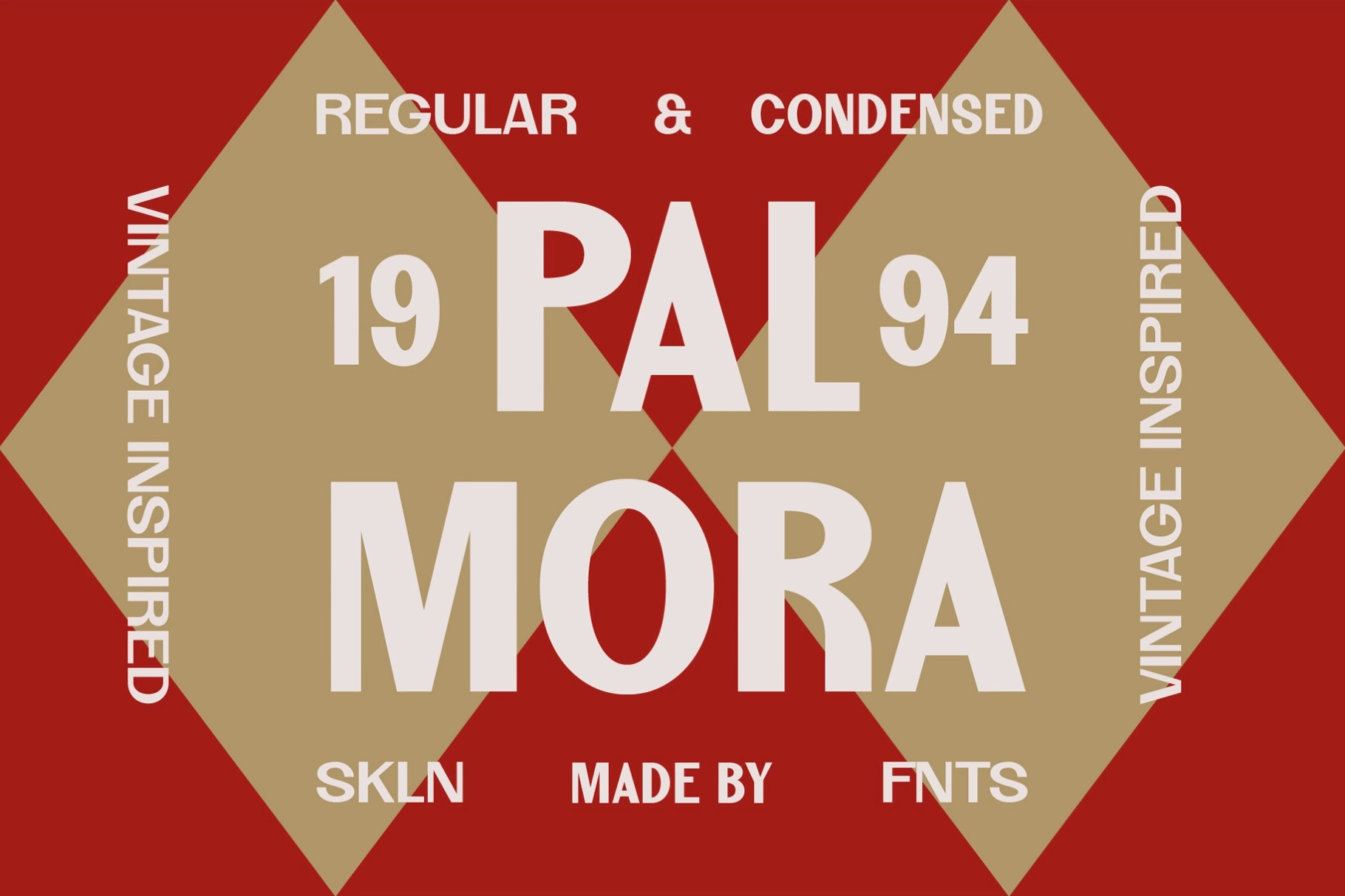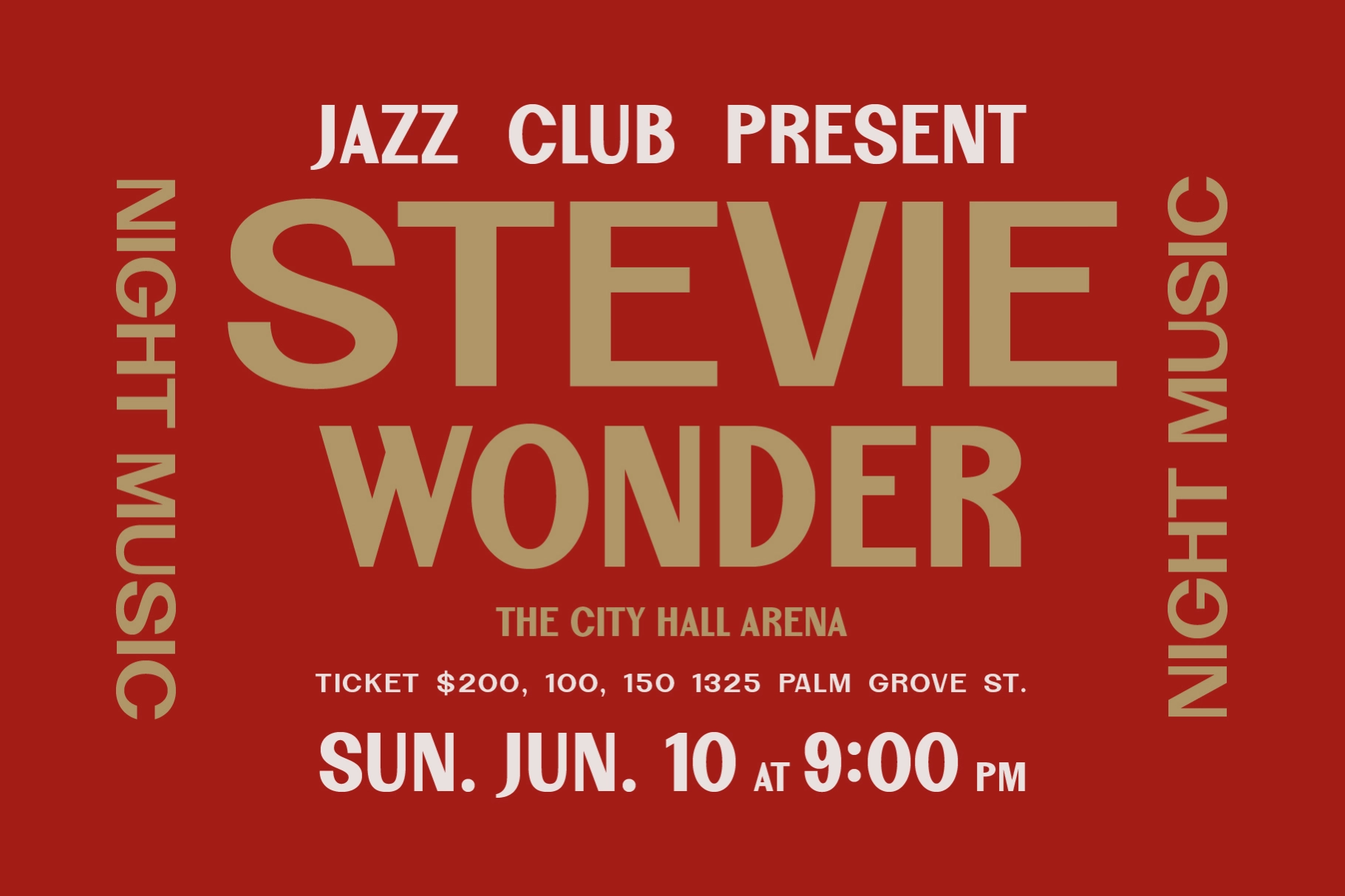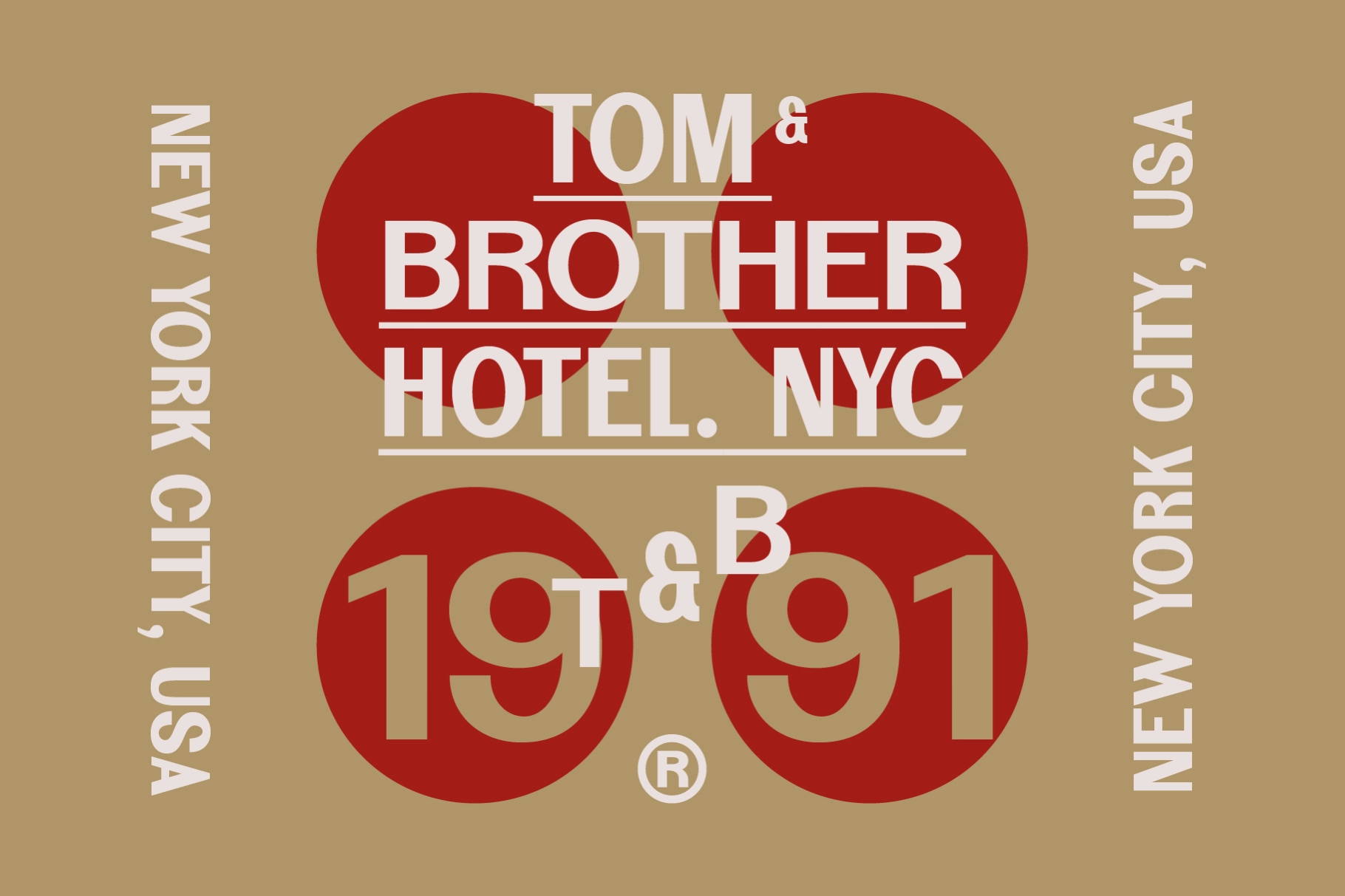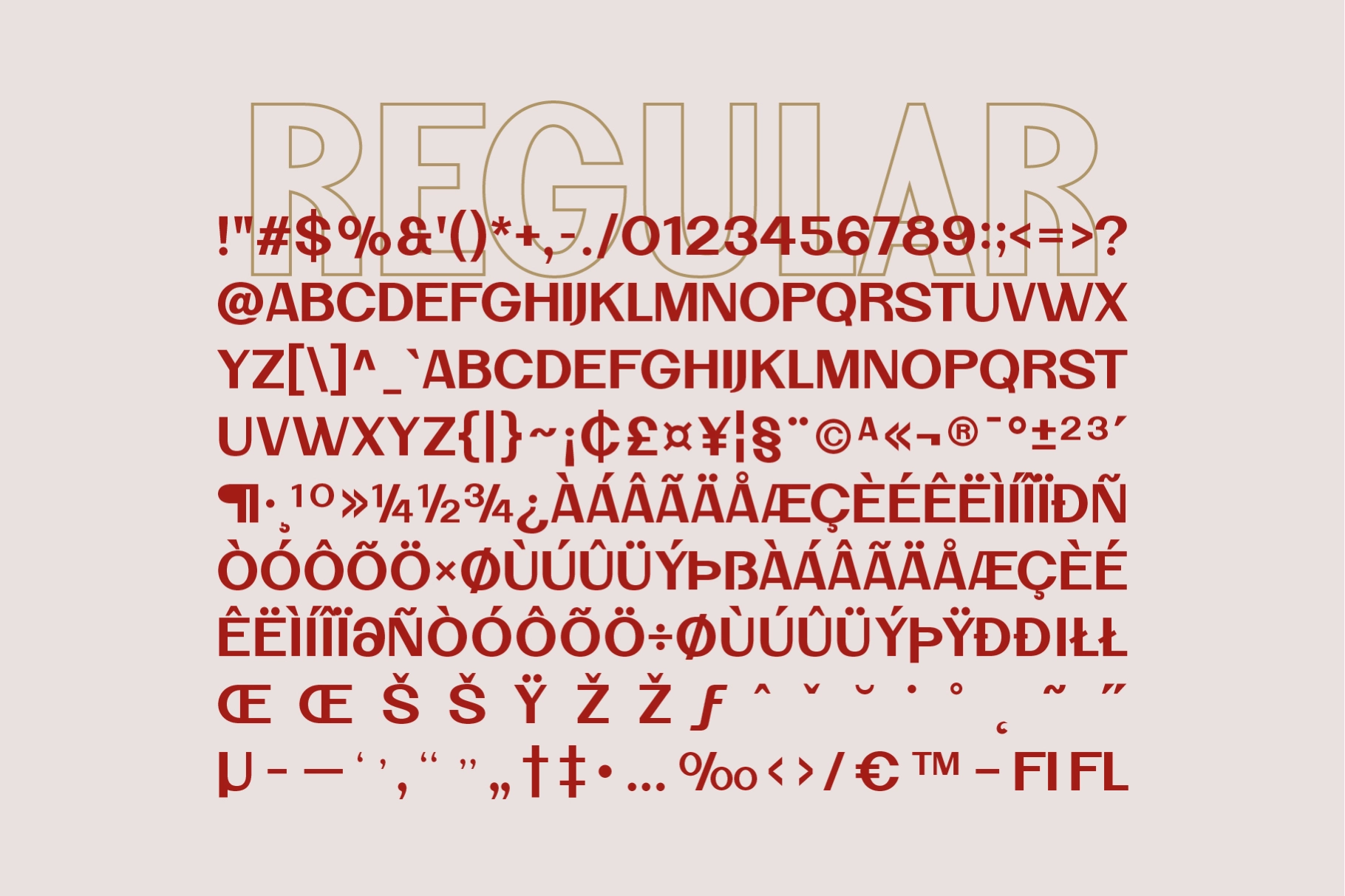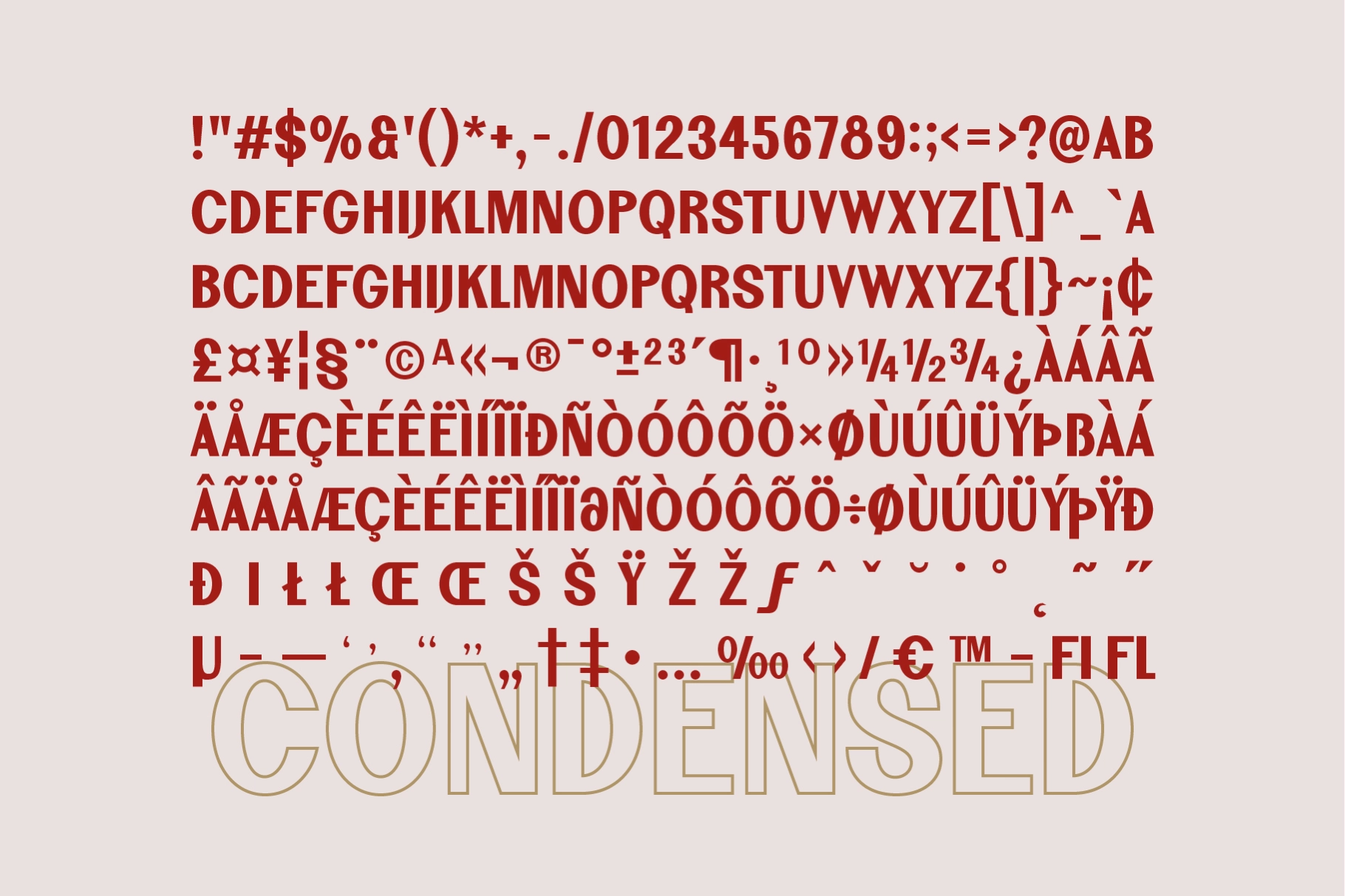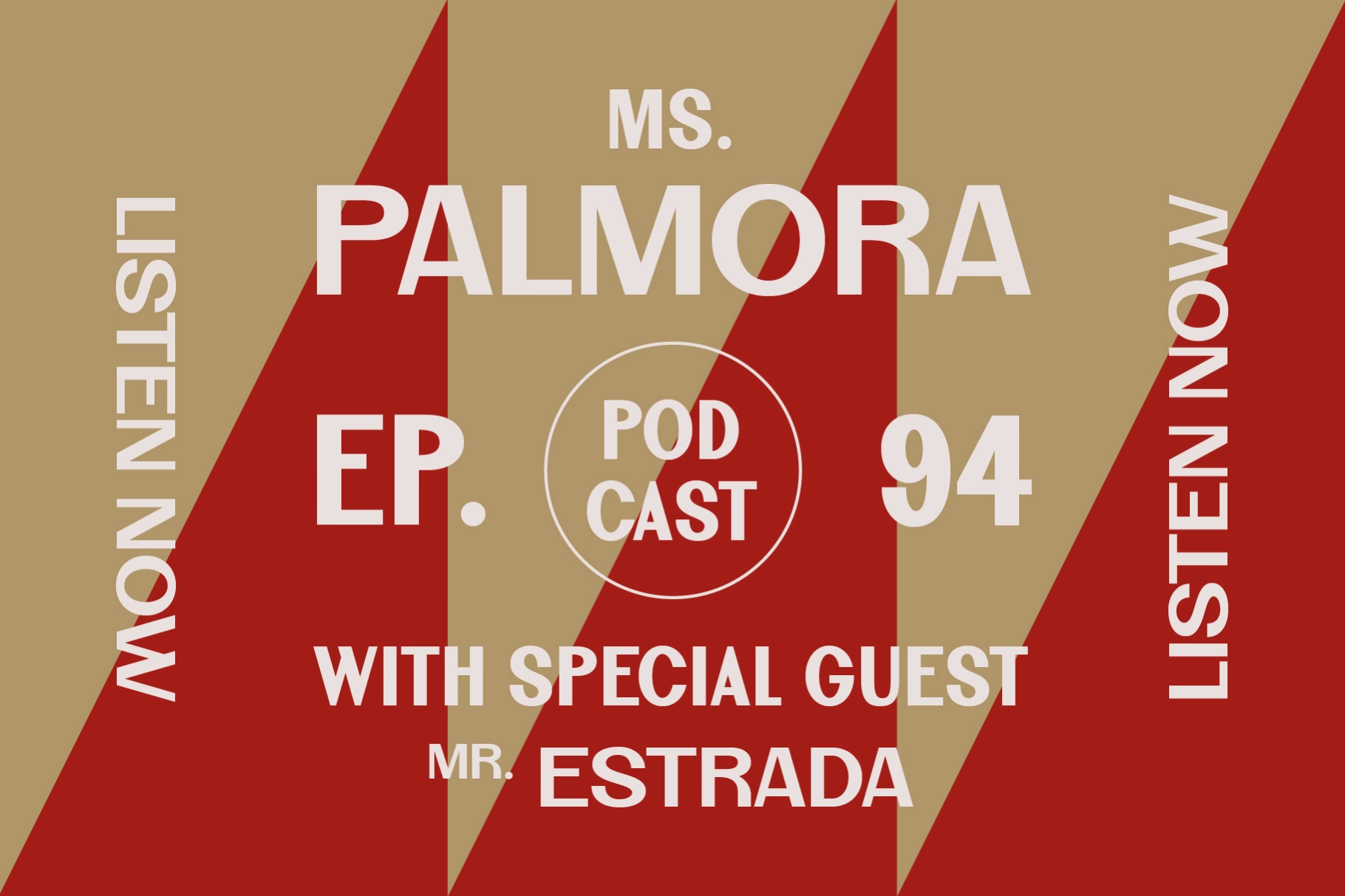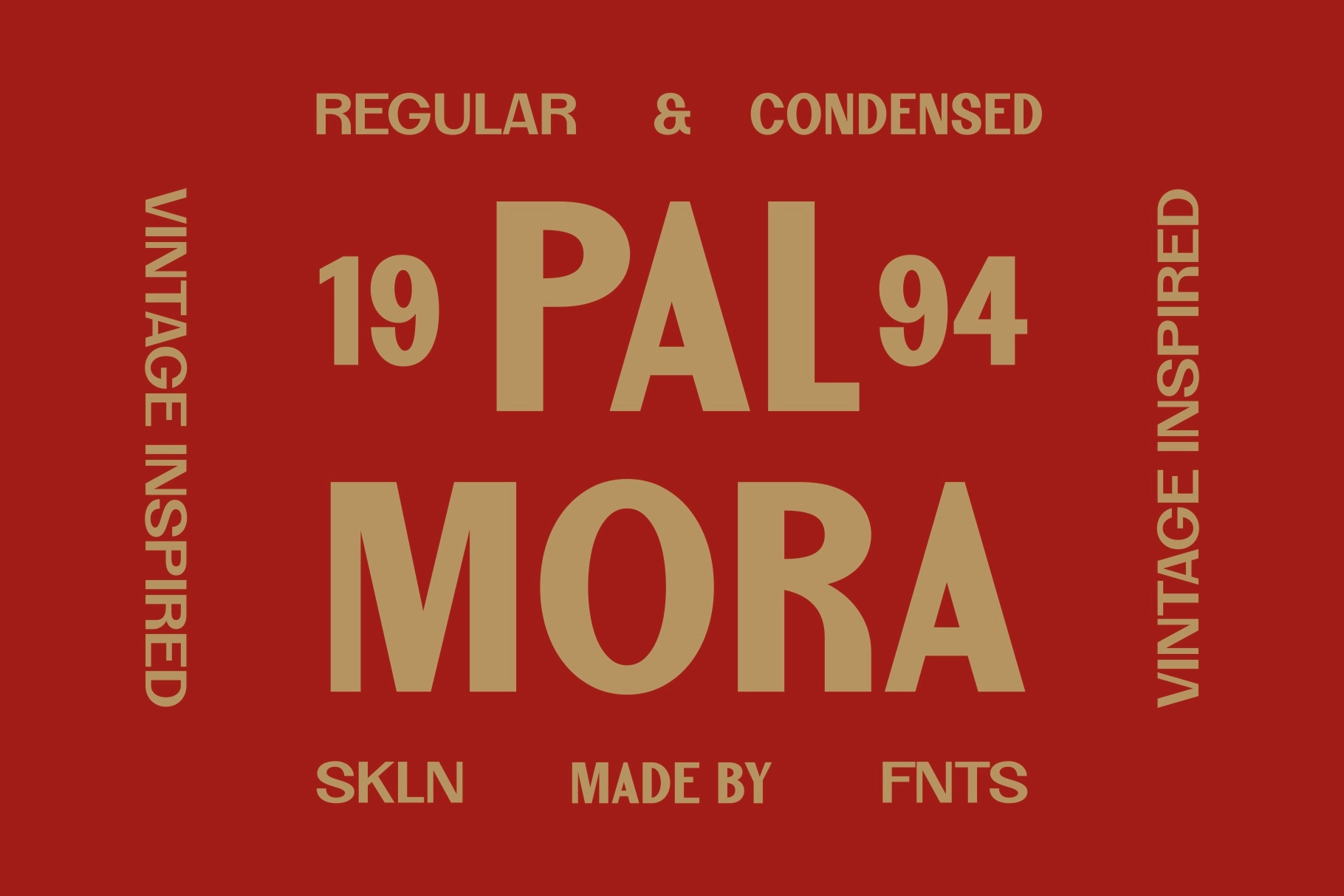
SFC Palmora Font
Palmora is a clean, vintage-inspired sans serif display typeface that blends mid-century charm with modern clarity. Built with confident strokes and geometric proportions, it brings the spirit of retro packaging, old industrial signage, and classic editorial typography into a refined contemporary form. Its bold presence, tall structure, and minimalistic curves make every word feel intentional, stylish, and unmistakably timeless.
Designed to work beautifully in both Regular and Condensed styles, Palmora is perfect for creators seeking a polished yet nostalgic aesthetic. Whether you’re crafting branding, packaging, or bold headline compositions, this typeface delivers strong visual impact with effortless versatility.
Ideal Applications for PALMORA Typeface:
- Retro branding & classic identity systems
- Vintage-inspired packaging & product labels
- Posters, editorial covers, and bold headlines
- Apparel & merchandise graphics
- Signage, storefront, and environmental typography
- Logo suites & creative display compositions
- Regular & Condensed Styles
- All Caps Typeface
- Clean Geometric Letterforms
- Basic Numerals & Punctuation